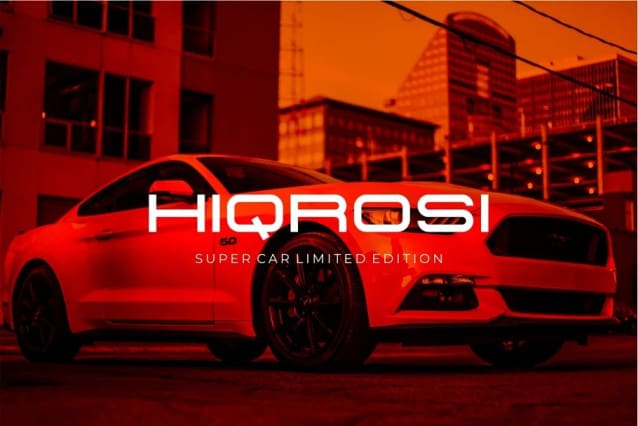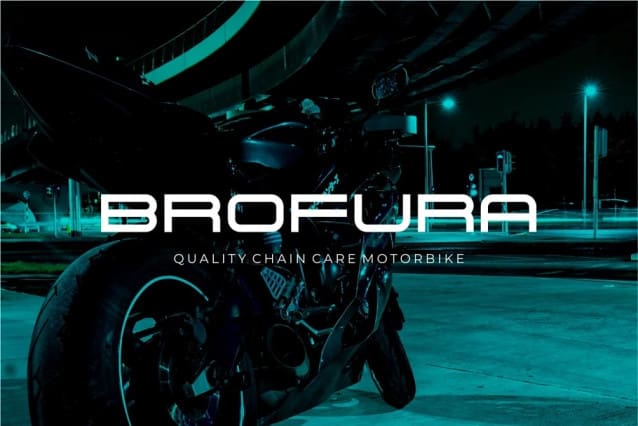
Qrosbi Font
Qrosbi Font branding sans serif font, fonts tend to be modern, simple and trendy styles, so I decided to make a futuristic font for the logo that you see. It is a modern logo font anytime and very popular, comes with a modern style to be able to become a favorite by the market. We keep this font looking elegant, classy, ​​modern, stylish, modern, and easy to use.
Qrosbi Font is the right choice for logos, brands, company names, fashion, food menus, brand names, branding, brands, quotes, album covers, and other projects. The Qrosbi font is here to take the quality of your designs to the next level.
The Qrosbifont style will make you love branding and take advantage of the cool design results for this font. Keep following us for the next font creation update 🙂